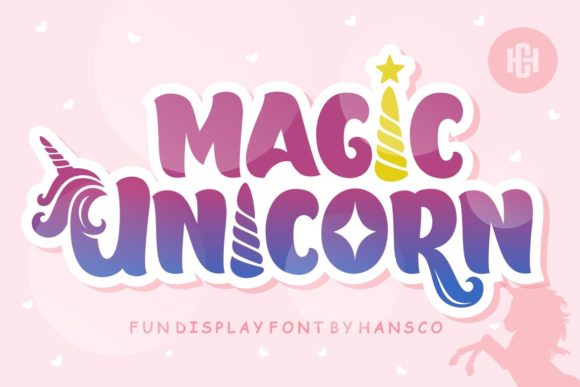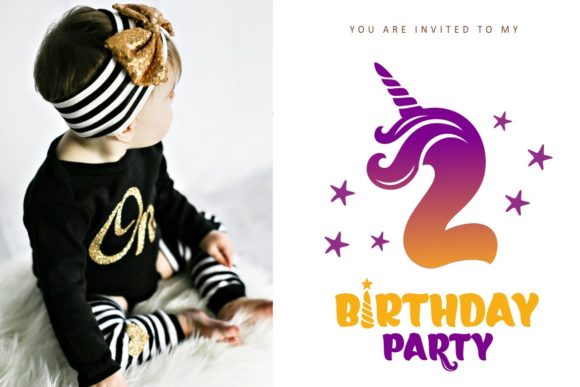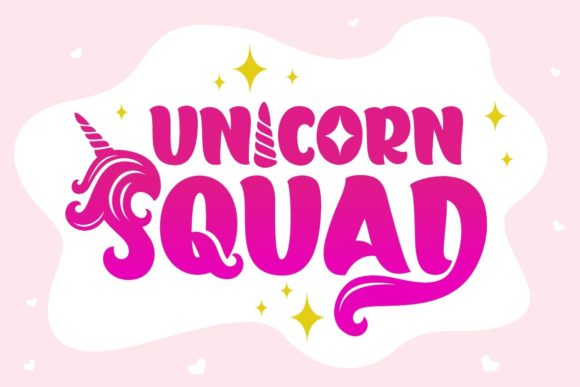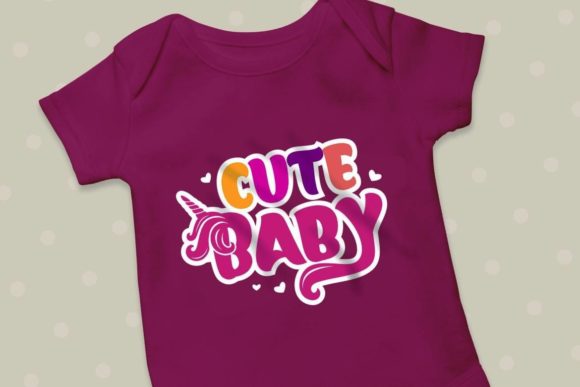
Magic Unicorn Font
About the Magic Unicorn Font
Add a touch of class to your work with the Magic Unicorn Font, a truly exceptional typeface. Magic Unicorn is a fun, jolly and incredibly charming display font. It embodies playfulness and authenticity and is the perfect choice for any children activity or school project.
Magic Unicorn Font excels in headlines, logos for children’s brands, and playful packaging designs. Its whimsical nature also makes it suitable for posters, invitations to children’s events, and even short social media captions. However, its highly decorative style is unsuitable for body text or UI elements; readability suffers at smaller sizes and in continuous blocks of text.
Consider pairing Magic Unicorn with a clean sans-serif like Open Sans for a balanced contrast, or a more playful script font like Pacifico to enhance the whimsical feel. A geometric sans-serif could provide a modern counterpoint, grounding the design while letting the Magic Unicorn font shine as a focal point.
The font’s overall personality is undeniably playful and friendly, conveying a sense of childlike wonder and joy. Its charm works best when used sparingly and strategically to emphasize key elements within a larger design.
Magic Unicorn Font Usage Examples
Magic Unicorn Font Example